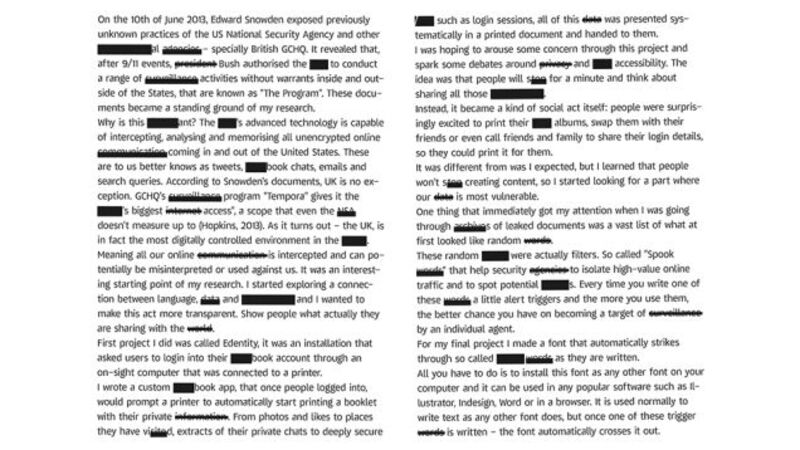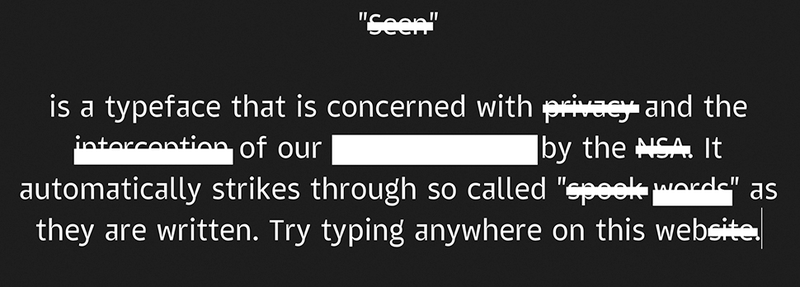
Some might see downloading this free font called Seen as the digital equivalent of donning a tin foil hat. Except that we know that security agencies like the NSA are intercepting emails and other communications, scanning for specific trigger words that this font automatically crosses out.
But Emil Kozole’s Seen font isn’t necessarily designed to let you slip messages under the NSA’s radar. It’s more of an educational tool revealing just how wide the NSA is casting its trigger word net. Seen can be used like any other font—but as soon as you type a word that might make the NSA interested in an online conversation you’re having, you’ll immediately be notified of the risk you’re taking.
Not convinced? You can actually try it out in your browser before installing the font itself. Or just use the online version as a quick way to proof an email before you hit send and risk ending up on a watch list somewhere.